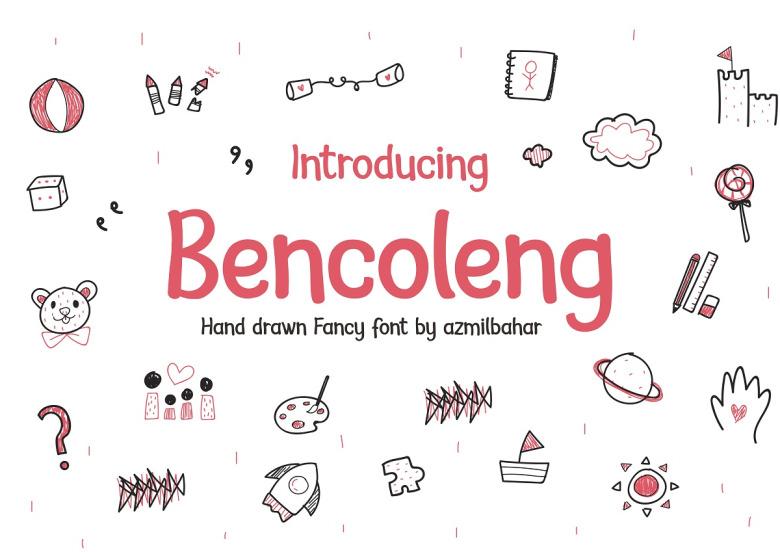
Bencoleng Font
Bencoleng is a cute and whimsical comic font with an adorable charm. This one-of-a-kind typeface will add a personal touch to any design project.
Bencoleng Handwritten Font